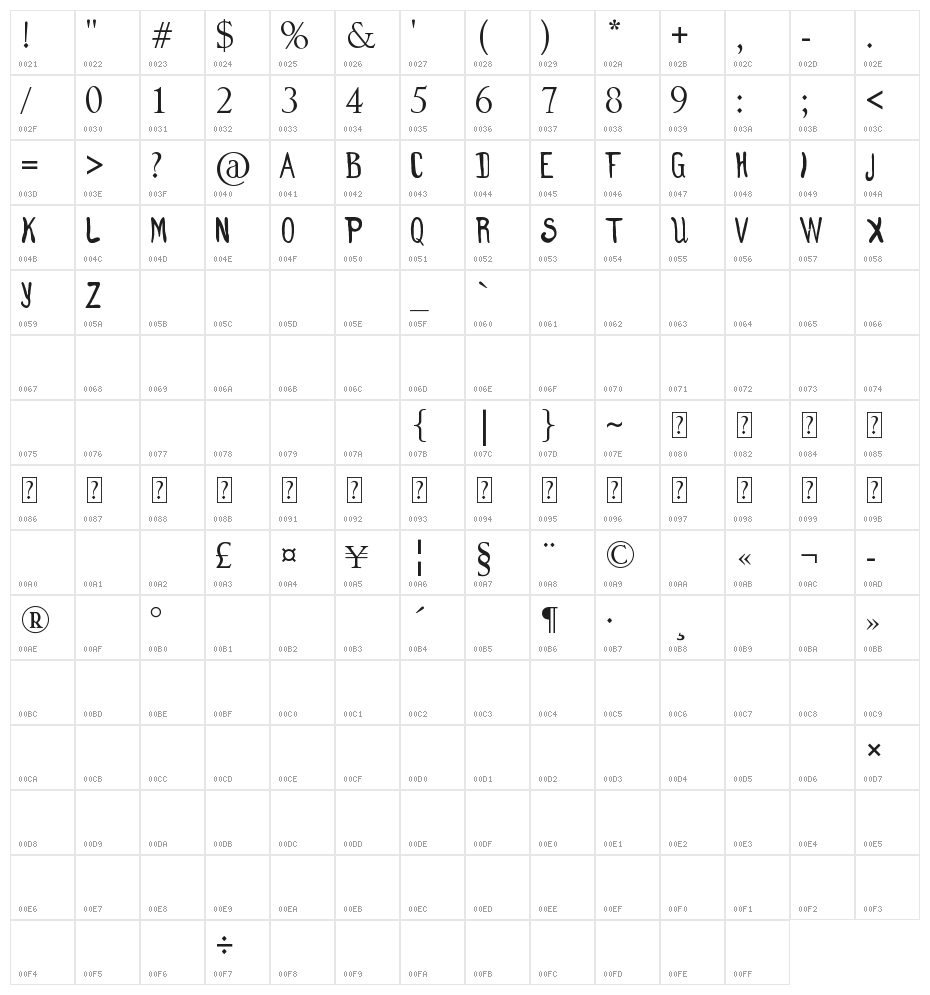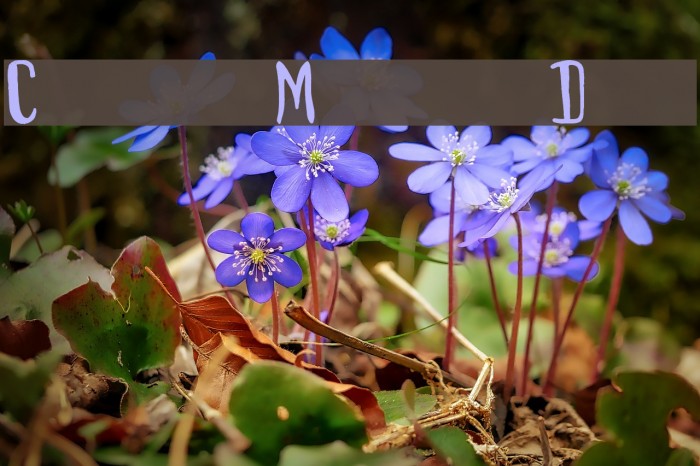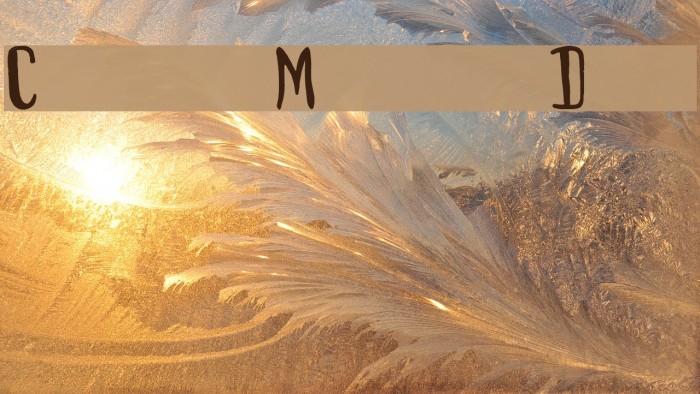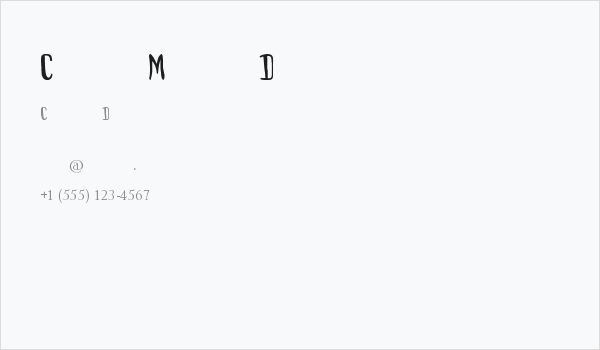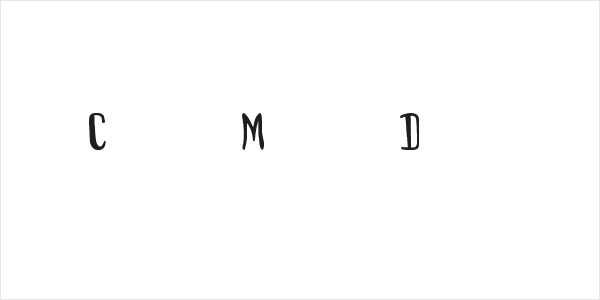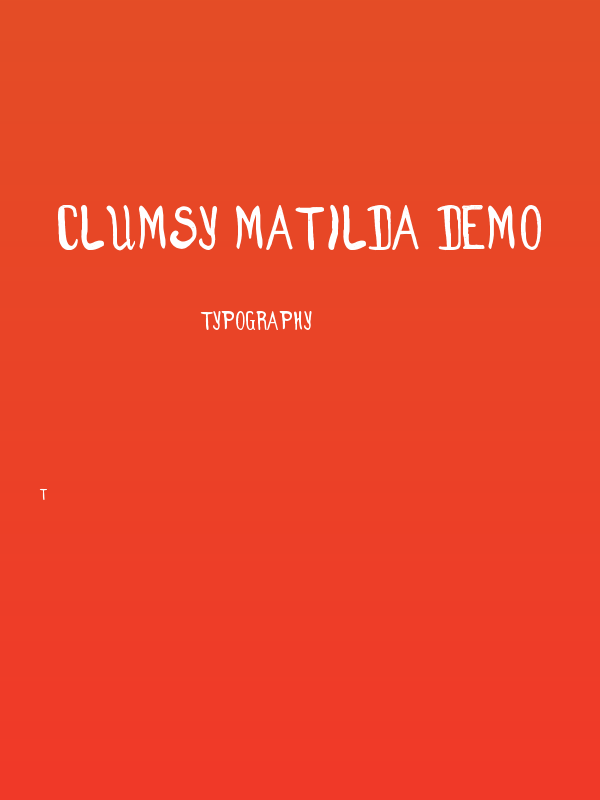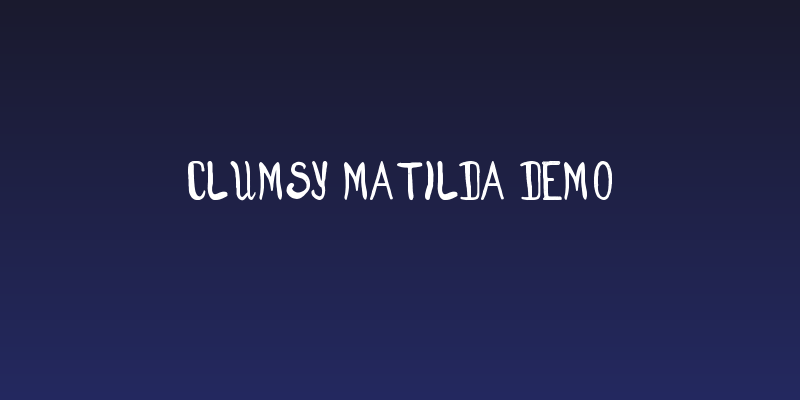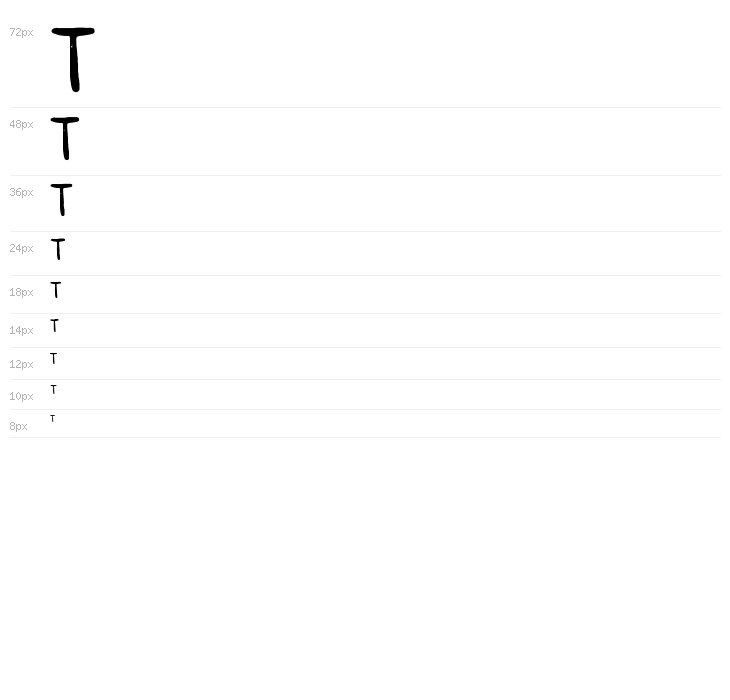
Clumsy Matilda Demo Font
Clumsy Matilda Demo Description
This font features a playful and whimsical design with a hand-drawn aesthetic. The uppercase letters are bold and slightly irregular, giving them a lively and dynamic appearance. The lowercase letters maintain this playful style, with a consistent stroke width that adds to the font's charm. The numerals are clear and easy to read, complementing the overall style. Special characters are included, maintaining the same hand-drawn quality. This font is perfect for projects that require a fun and informal touch.